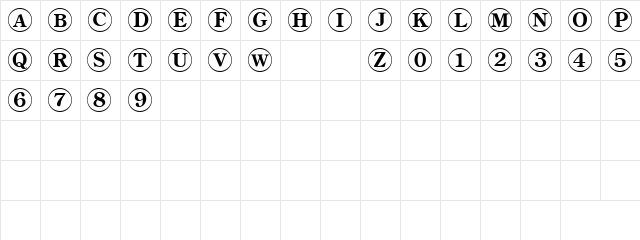
TQF_Keycaps_2 Regular
Design Context for TQF_Keycaps_2 Typeface
TQF_Keycaps_2 takes a measured approach to typography — its balanced proportions and neutral character make it a reliable workhorse for both digital and print work.